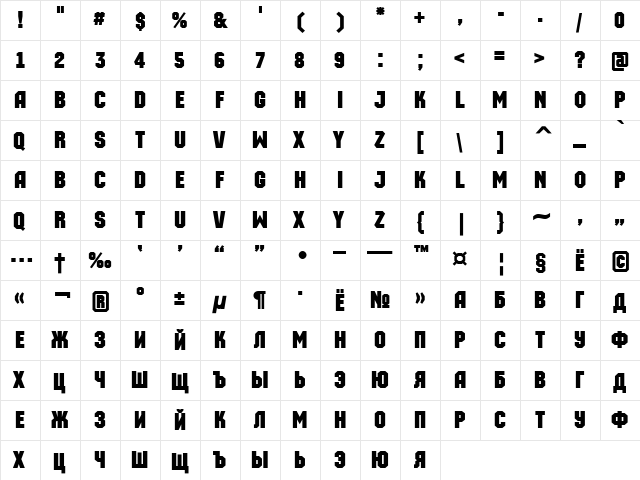
a_MachinaOrto Bold
Design Context for a_MachinaOrto Typeface
a_MachinaOrto is a composed and adaptable typeface that performs quietly and consistently across a wide range of design contexts. The heavy weight commands attention and anchors typographic hierarchies.